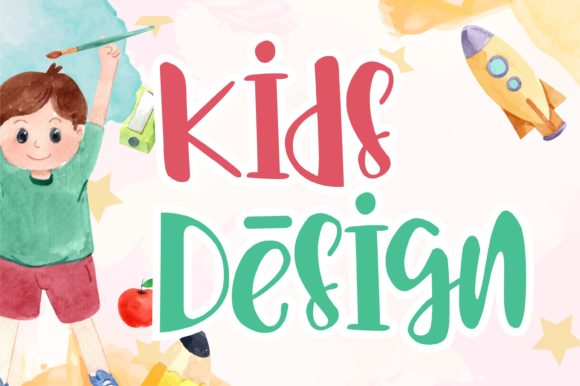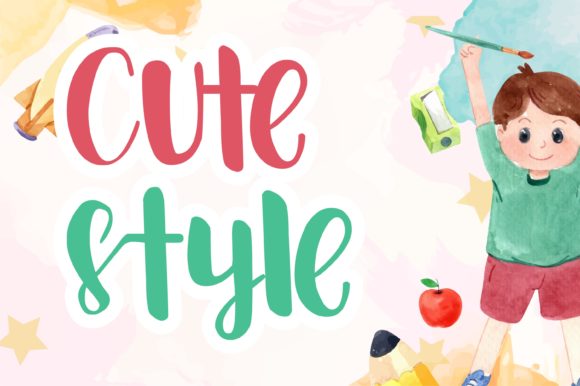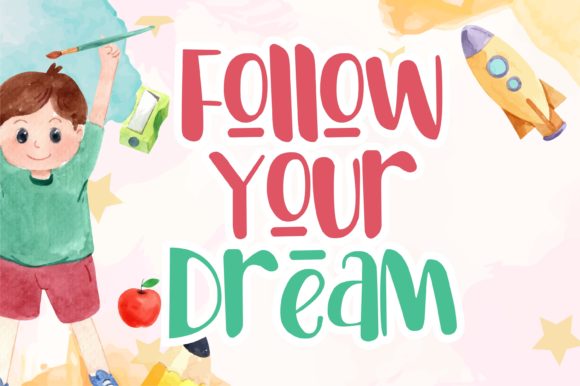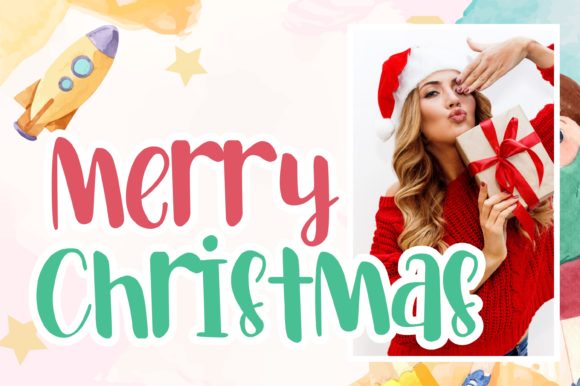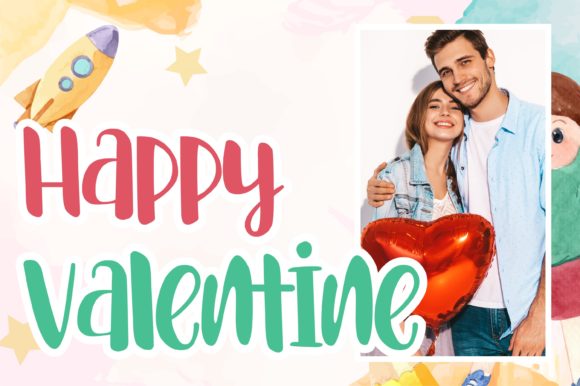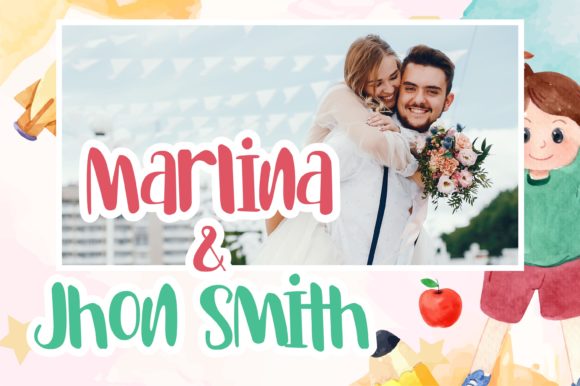
Unleashing the Joy of Childhood: Introducing Boykids Font
Who among us hasn’t been inspired by the simple joys of childhood? The laughter, the imagination, the boundless energy – it’s a time of life that never fails to spark creativity. As designers, we often find ourselves drawing inspiration from these carefree days, looking for ways to infuse our work with a sense of playfulness and wonder. And that’s exactly where the Boykids Font comes in.
This delightful display font is specifically designed to capture the essence of childhood, making it the perfect addition to any children’s themed design. With its fun and joyful vibe, Boykids Font is sure to bring a smile to the faces of both kids and adults alike. Whether you’re working on a project that needs a playful touch or simply want to add some whimsy to your design, Boykids Font is an invaluable asset to have in your toolkit.
Boykids Font Key Features
- Font Family: Boykids is a sans-serif font designed specifically for children’s content, making it perfect for educational materials, children’s books, and websites.
- Character Set: The font includes a wide range of characters, including uppercase and lowercase letters, numbers, punctuation marks, and special symbols, making it suitable for various languages.
- Unique Characteristics: The font features a playful and child-friendly design, with rounded edges and smooth curves, making it perfect for creating engaging and fun content for children.
Designer Review: Boykids Font
Overall, I think the Boykids Font is a sweet, playful font that’s perfect for children’s books, educational materials, or any design project that needs a fun, youthful vibe. Here are some things that work well: ✨
- Expressive letterforms: Each letter in the font has a unique personality, which makes it engaging to read.
- Clear readability: The font is easy to read, even at smaller sizes, which is essential for children’s materials.
- Great for titles and headings: The font’s bold, playful style makes it perfect for titles and headings that need to grab attention.
However, there are a few limitations that might impact its usability: ⚠️
- Not ideal for body text: While the font is great for titles and headings, it’s not the best choice for large blocks of body text, as it can be tiring to read.
- May not be suitable for formal designs: The font’s playful style might not be suitable for formal designs or projects that require a more serious tone.
Overall, I think the Boykids Font is a great addition to any designer’s toolkit, especially for projects that need a fun, youthful vibe. Just be mindful of its limitations and use it judiciously.
Tip: Use the Boykids Font in combination with bright colors and playful graphics to create a fun and energetic design.
Tip: Use the Boykids Font in conjunction with vector graphics and bold shapes to create a dynamic and eye-catching design.
Tip: Use the Boykids Font in combination with bold text and colorful graphics to create a engaging presentation or document.
The Boykids Font is ideal for use in children’s book illustrations, party invitations, and educational materials. It’s also great for creating playful and energetic designs for social media, advertising, and branding.
Remember to use the Boykids Font in moderation and balance it with other fonts and design elements to avoid visual overload.